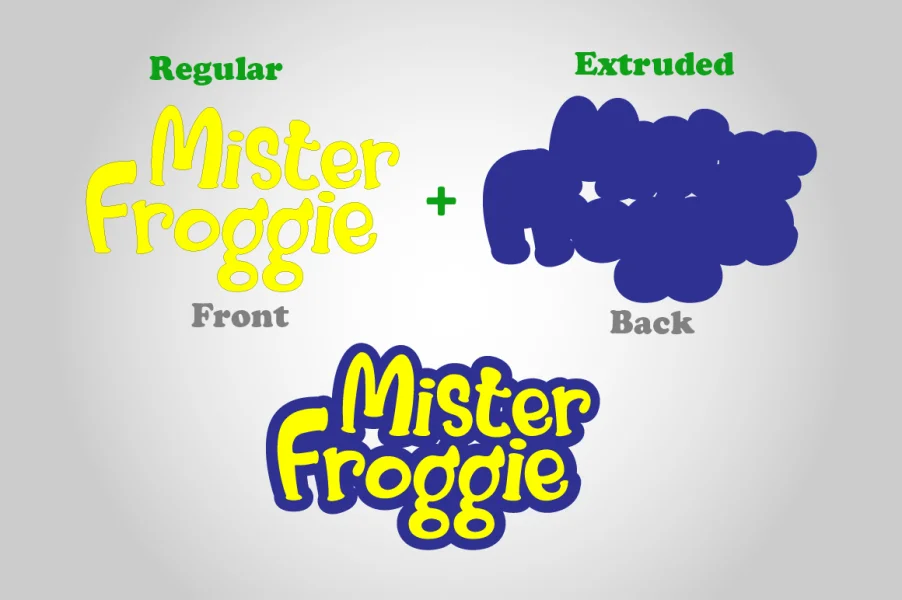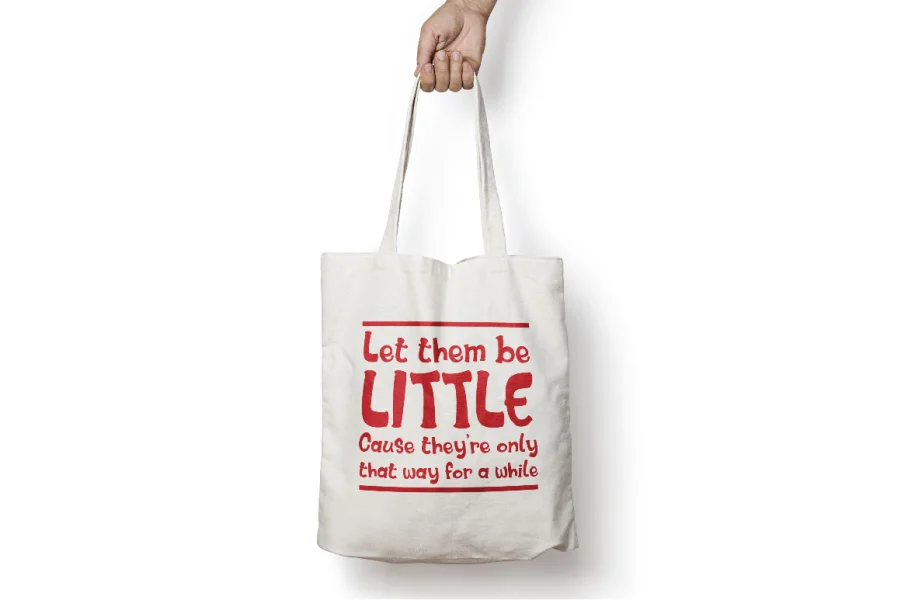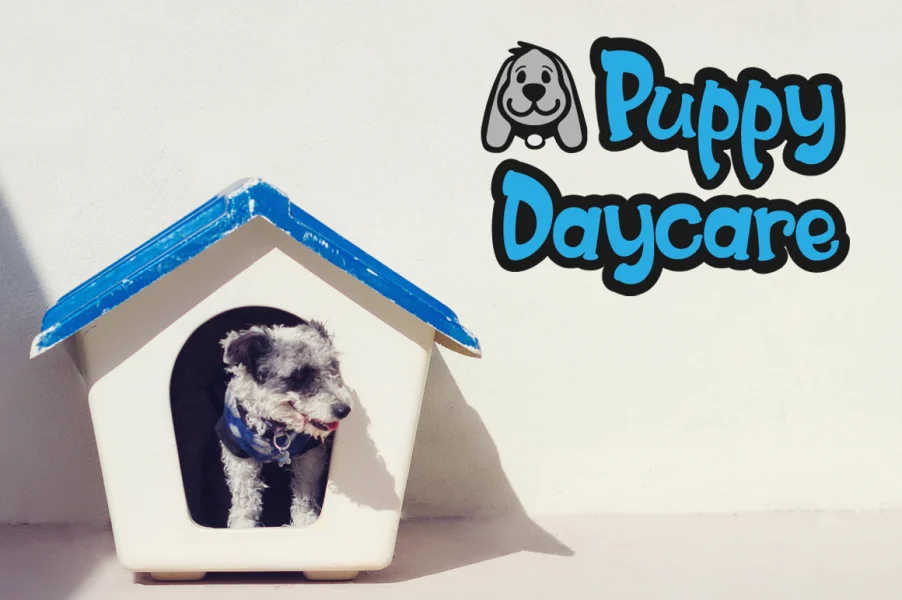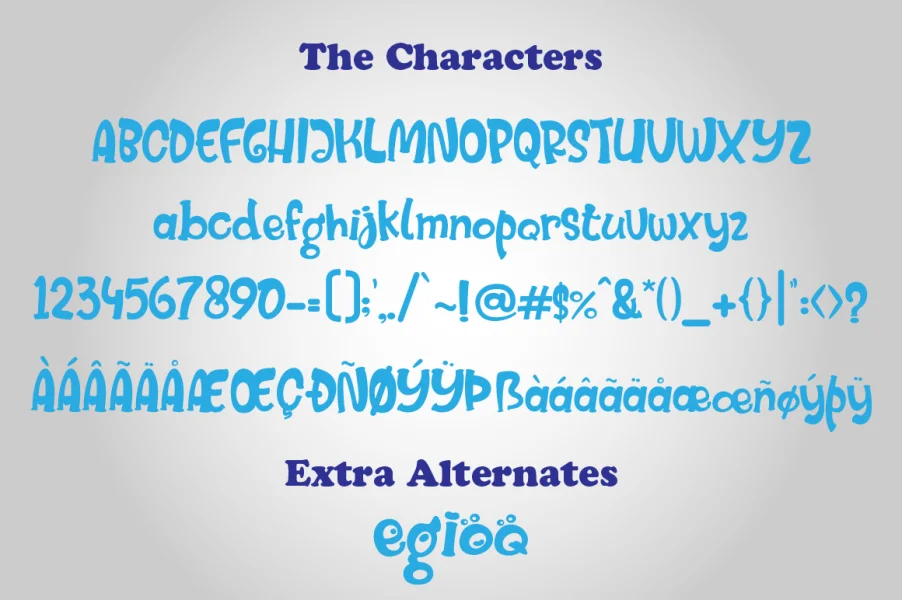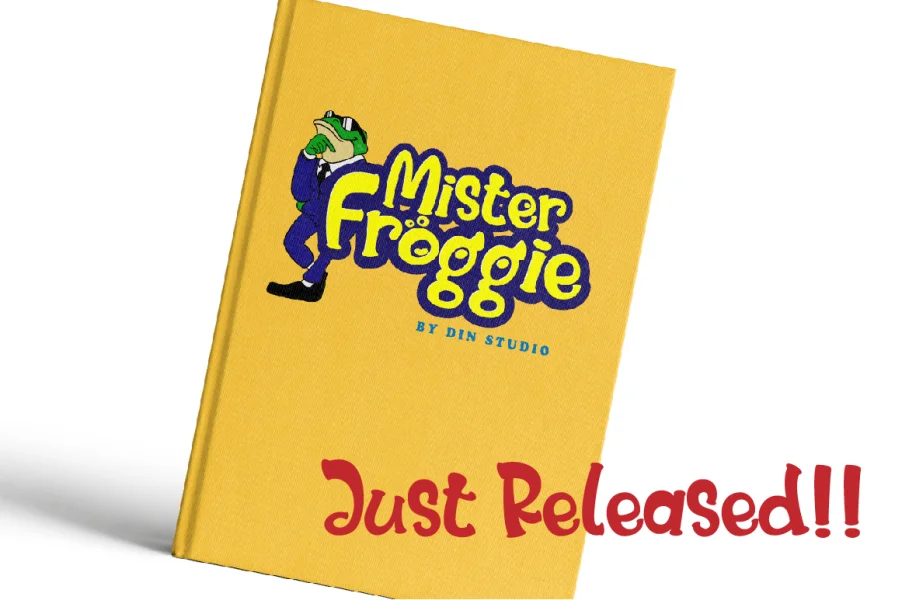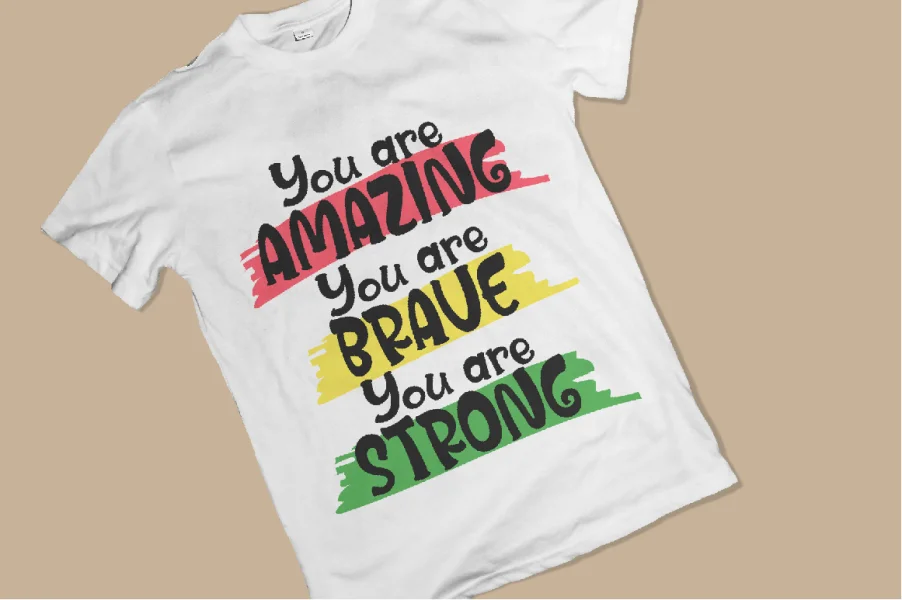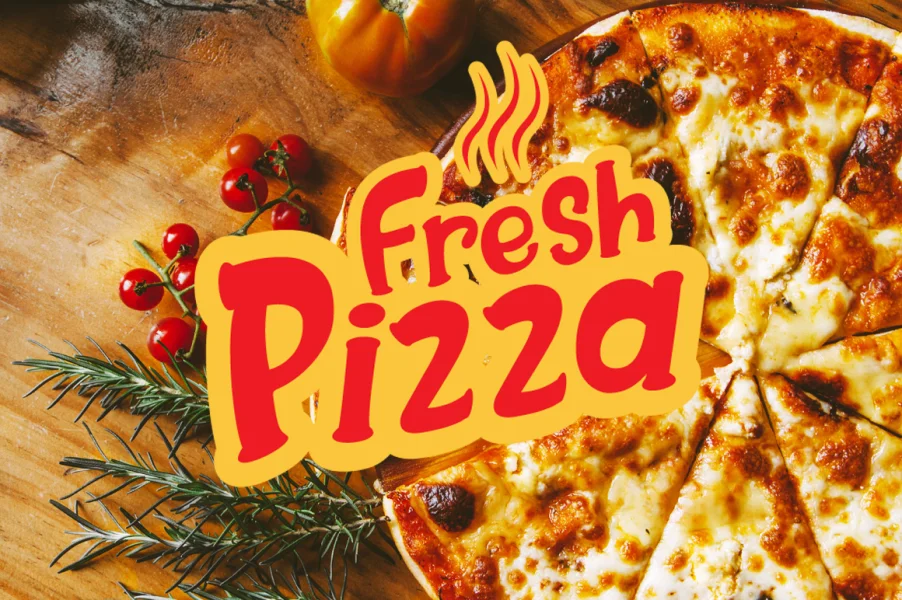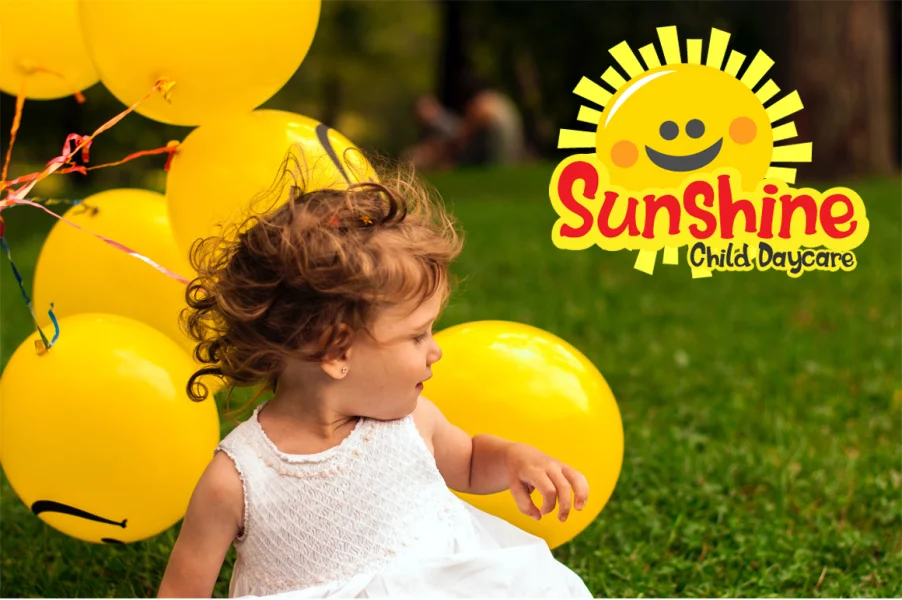
Mister Froggie is a playful font that is suitable for a large range of designs.
It has a very fun, happy style and contains a full set of lower & uppercase characters, a large range of punctuation, numerals, multilingual support and many cute alternates.